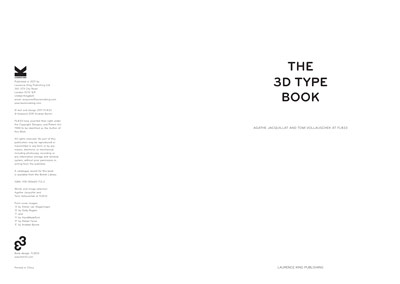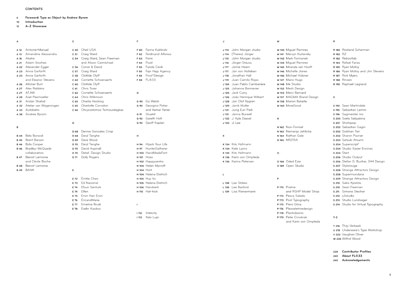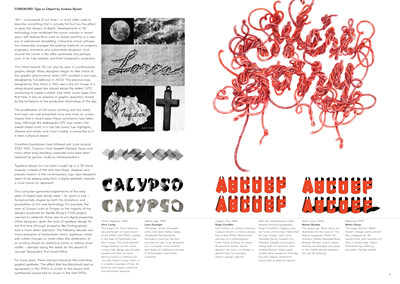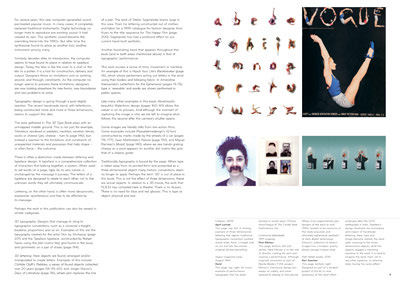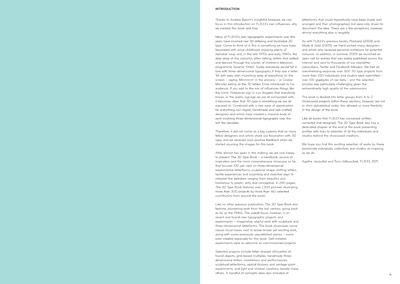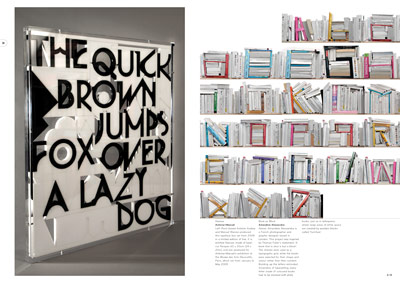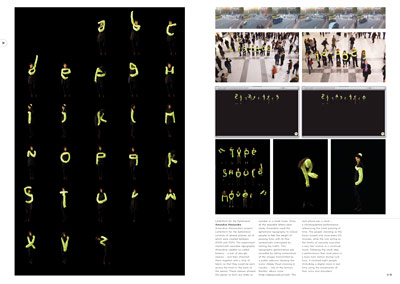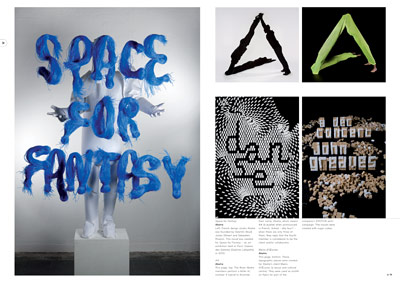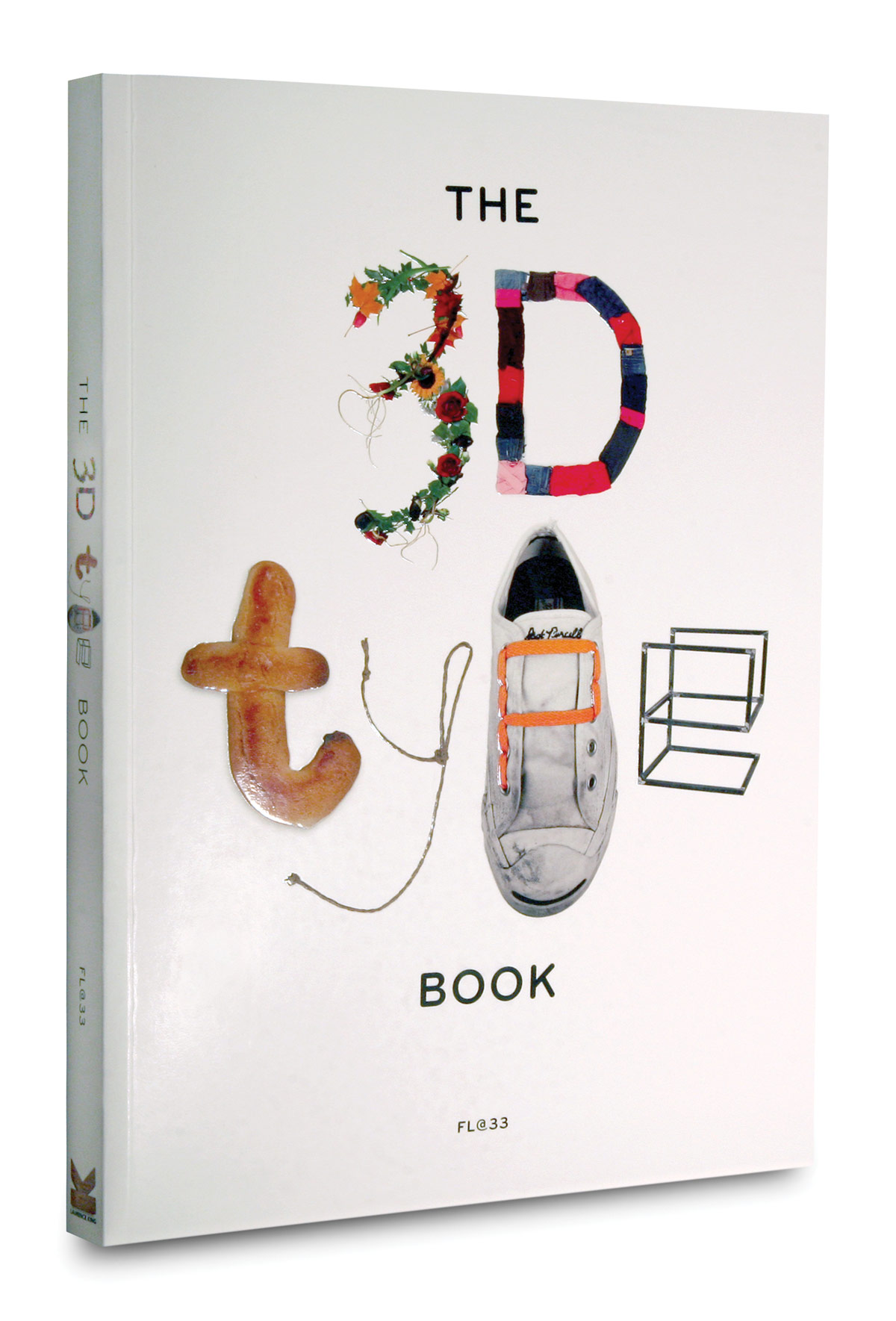
The 3D Type Book ///
The third book conceived, compiled, written and designed by Tomi Vollauschek under the FL@33 imprint, at London-based design studio FL@33, flat33.com
This book is the most comprehensive showcase of three-dimensional letterforms ever written, featuring over 1,300 images of more than 300 projects by more than 160 emerging talents and established individuals and studios including Sagmeister Inc, Vaughan Oliver, Milton Glaser, Alvin Lustig, Louis Danziger, Roger Excoffon, Paul Elliman, Marian Bantjes, Geoff Kaplan, Clotilde Olyff, Italo Lupi, Marion Bataille, Antoine+Manuel, Frost*Design, Mervyn Kurlansky, Non-Format, Oded Ezer, Rowland Scherman, Post Typography, Rinzen, Underware’s Type Workshop, J. Kyle Daevel, Ji Lee, Pleaseletmedesign and Strange Attractors Design.
As well as pioneering milestones from as far back as the 1940s, this book focuses on recent and brand new typographic projects. 3D type specialist Andrew Byrom explains the context and motivation behind these innovative works in an insightful foreword.